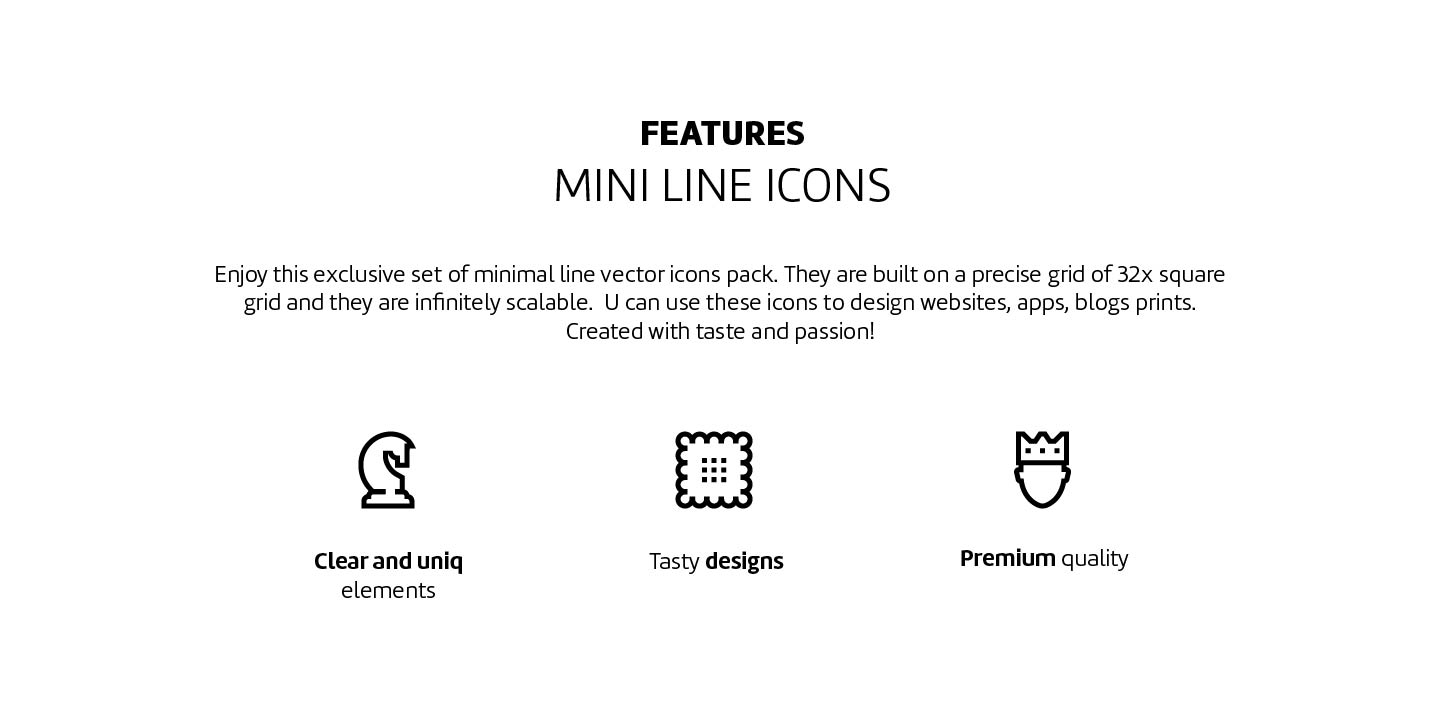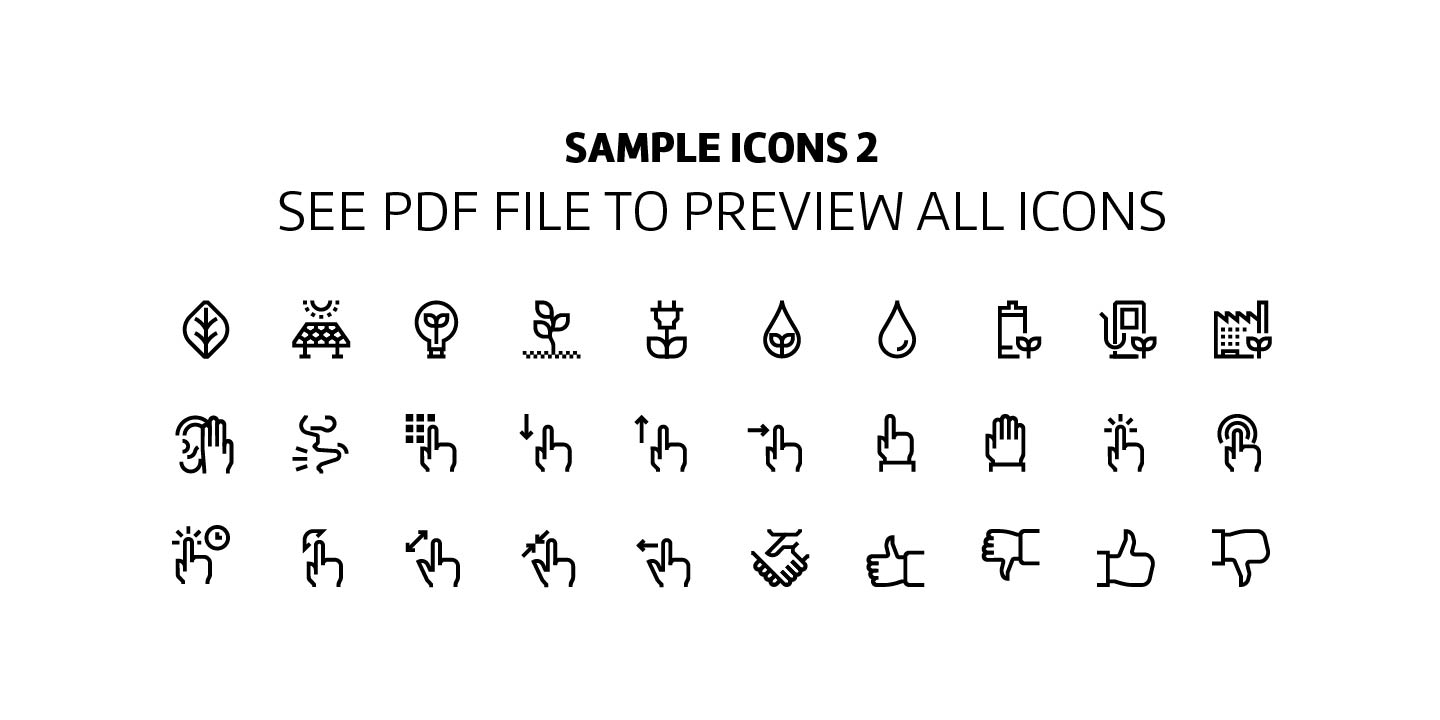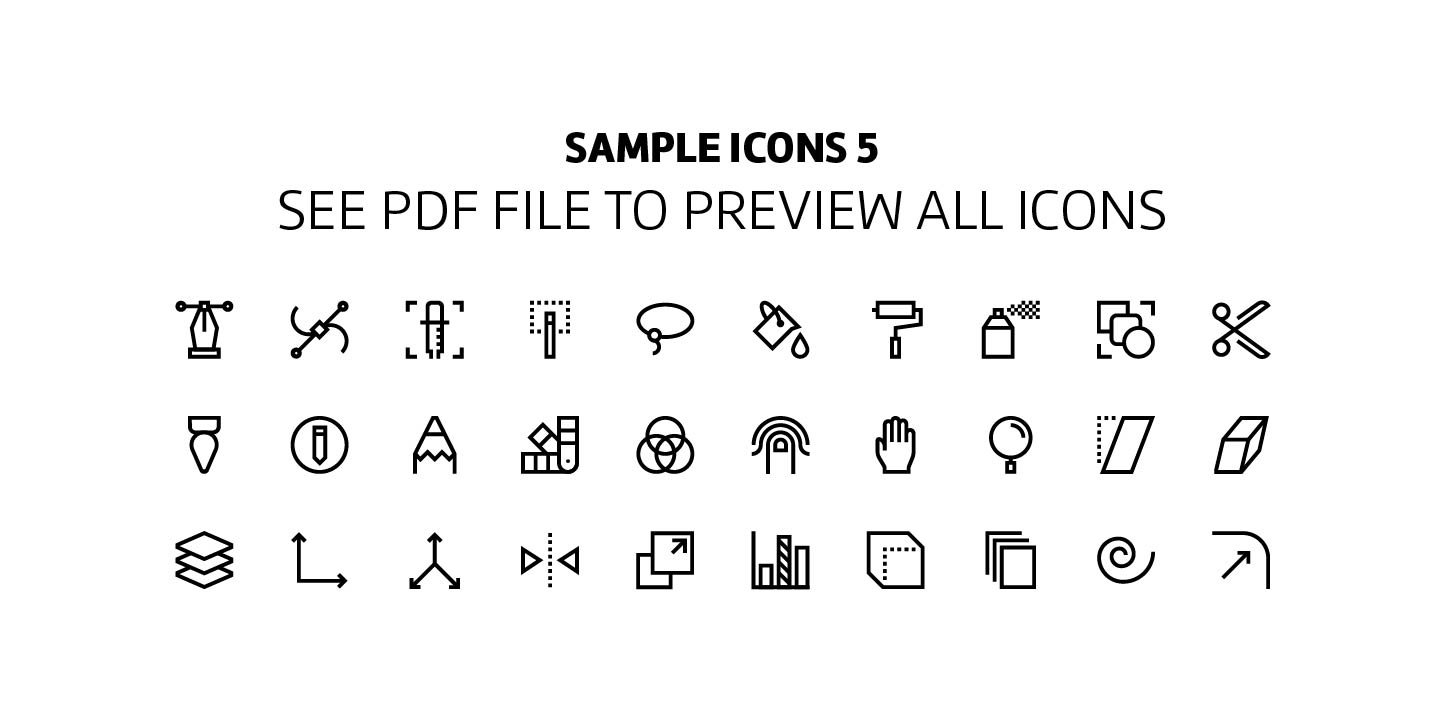
Enjoy this exclusive set of minimal line vector icons font pack including 2764 icons. They are pixel perfect and infinitely scalable. You can use these icons to design websites, apps, blogs prints. Created with taste and passion! Please Send a message to info@howcolour.com with your order code to get a link to Cheatsheets file.